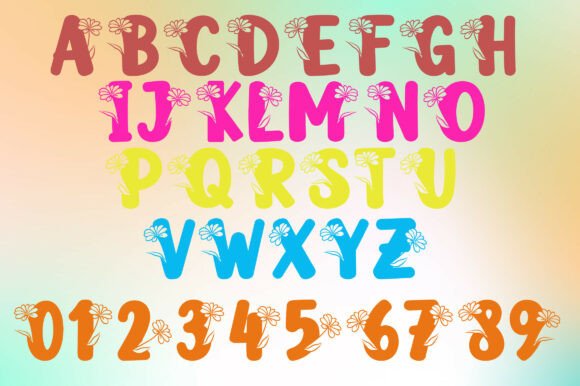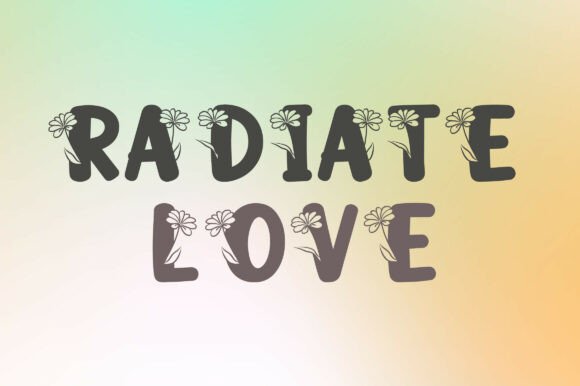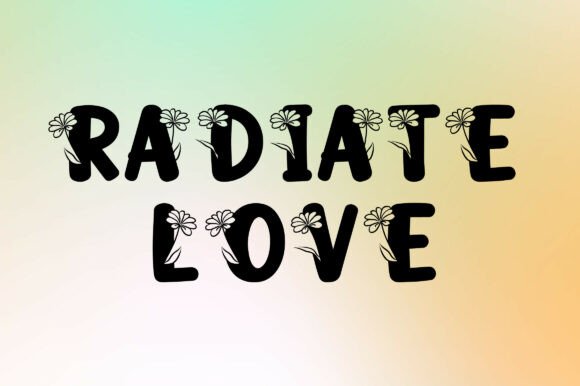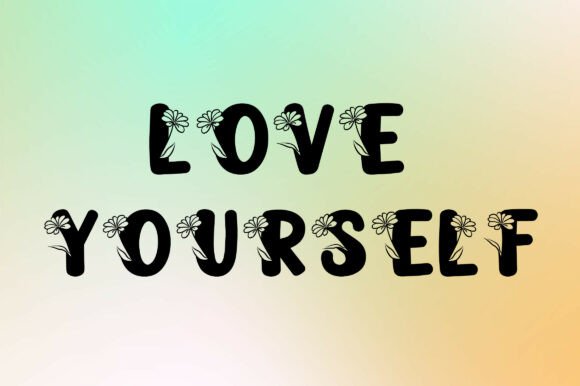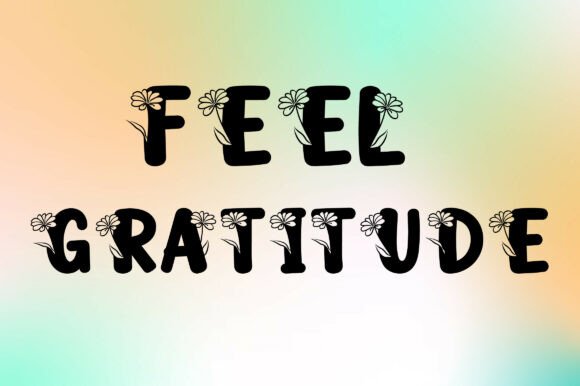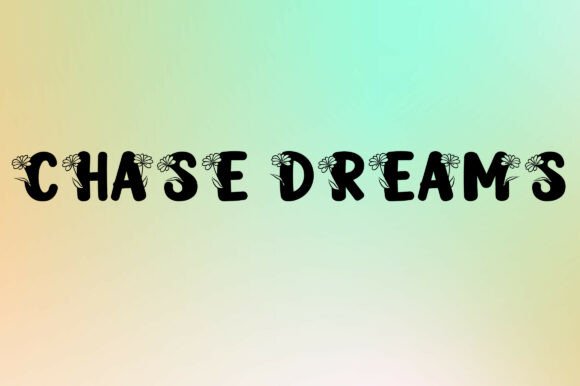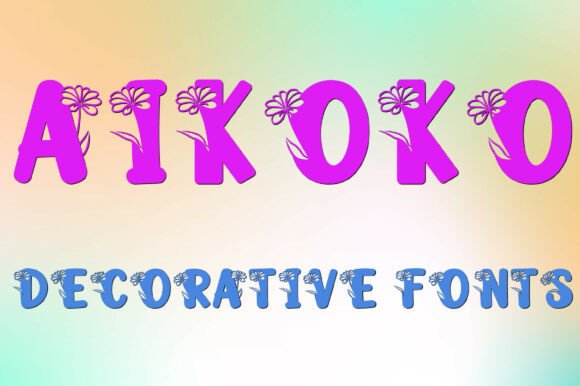
Aikoko Font: Elevate Your Designs with Decorative Flower Fonts
In the world of typography, few fonts capture the essence of elegance and playfulness as beautifully as the Aikoko Font. This charming and artistic typeface is inspired by the intricate details of floral elements, bringing a fresh and sophisticated touch to various design projects. Whether you’re a designer, crafter, or simply someone who appreciates the beauty of typography, Aikoko Font is sure to captivate your imagination and inspire your creativity.
The Beauty of Aikoko Font
Aikoko Font is a decorative flower font that boasts a versatile style, making it perfect for a wide range of creative applications. From logos and branding to posters, invitations, packaging, and social media graphics, this font adds a touch of elegance and sophistication to any design. The font features uppercase English letters A–Z and numbers 0–9, providing a comprehensive set of characters to bring your ideas to life.
Key Features of Aikoko Font
- Decorative Floral Style: Aikoko Font is characterized by its beautiful floral elements, which add a touch of whimsy and charm to any design.
- Versatile and Playful: The font’s playful and elegant style makes it perfect for a wide range of creative applications, from formal to informal designs.
- Uppercase English Letters and Numbers: Aikoko Font features uppercase English letters A–Z and numbers 0–9, providing a comprehensive set of characters for your designs.
- Elegant and Sophisticated: The font’s elegant and sophisticated style makes it perfect for designs that require a touch of refinement and luxury.
Creative Applications of Aikoko Font
Aikoko Font is an incredibly versatile typeface that can be used in a wide range of creative applications, including:
- Logos and Branding: Create a memorable and elegant logo for your business or brand with Aikoko Font.
- Posters and Flyers: Add a touch of sophistication and elegance to your posters and flyers with this beautiful font.
- Invitations and Stationery: Create beautiful and elegant invitations, greeting cards, and stationery with Aikoko Font.
- Packaging Design: Add a touch of luxury and sophistication to your packaging designs with this elegant font.
- Social Media Graphics: Create stunning social media graphics, including Facebook posts, Instagram stories, and Twitter headers, with Aikoko Font.
Why Choose Aikoko Font?
Aikoko Font is an excellent choice for designers and crafters who want to add a touch of elegance and sophistication to their designs. Here are some reasons why you should choose Aikoko Font:
- Unique and Creative: Aikoko Font is a unique and creative typeface that will set your designs apart from the rest.
- Elegant and Sophisticated: The font’s elegant and sophisticated style makes it perfect for designs that require a touch of refinement and luxury.
- Versatile and Playful: Aikoko Font is a versatile and playful typeface that can be used in a wide range of creative applications.
In conclusion, Aikoko Font is a beautiful and elegant typeface that is perfect for designers and crafters who want to add a touch of sophistication and elegance to their designs. With its decorative floral style, versatile and playful nature, and comprehensive set of characters, Aikoko Font is an excellent choice for a wide range of creative applications. Whether you’re creating logos, branding, posters, invitations, packaging, or social media graphics, Aikoko Font is sure to bring your ideas to life with style and imagination.
Get Ready to Bloom with Aikoko Font